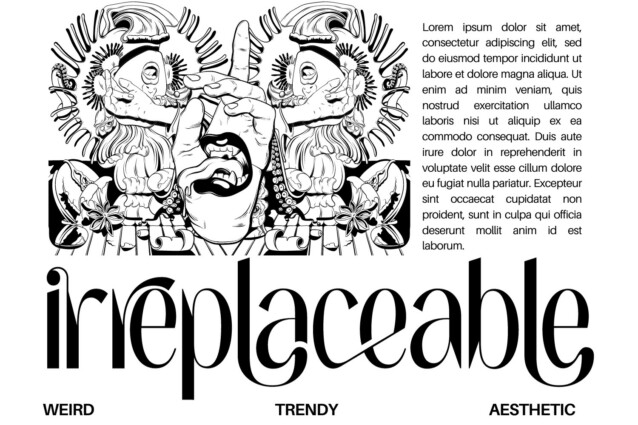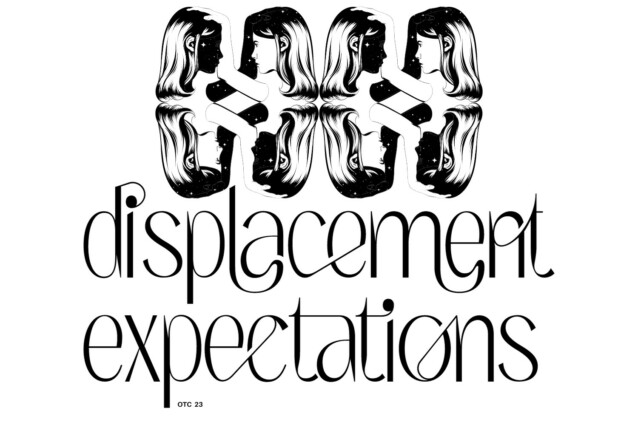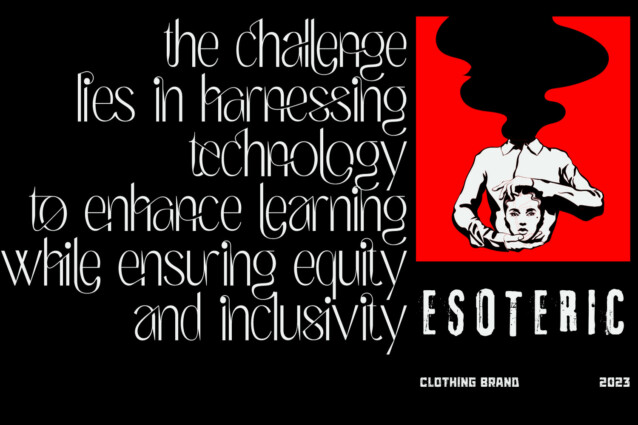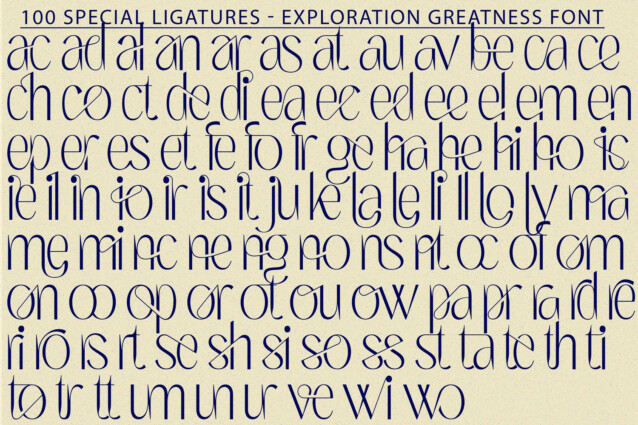
Exploration Greatness Font
Exploration Greatness Font is a condensed sans-serif family. Regular stroke, fun character with are 100 of ligatures. To give you an extra creative work. It’s has loads of options to play around with. Included in the glyph set is Small-Caps, a Stylistic Uppercase Superscript, Stylistic Alternates and Circled Numbers. This font is good for logo design, Social media, Movie Titles, Books Titles, a short text even a long text letter and good for your secondary text font with script or serif.
Exploration Greatness was built with OpenType features and includes 100 ligatures, alternate, numbers, punctuation, and it also supports other languages.
ac ad al an ar as at au av be ca ce ch co ct de di ea ec ed ee el em en ep er es et fe fo fr ge ha he hi ho ie ic il in io ir is it ju ke la le li ll lo ly ma me mi nc nd ne ng no nt ns oc of om on oo op or ot ou ow pa pr ra rd re ri ro rs rt se sh si so ss st ta te th ti to tr tt um un ur ve wi wo